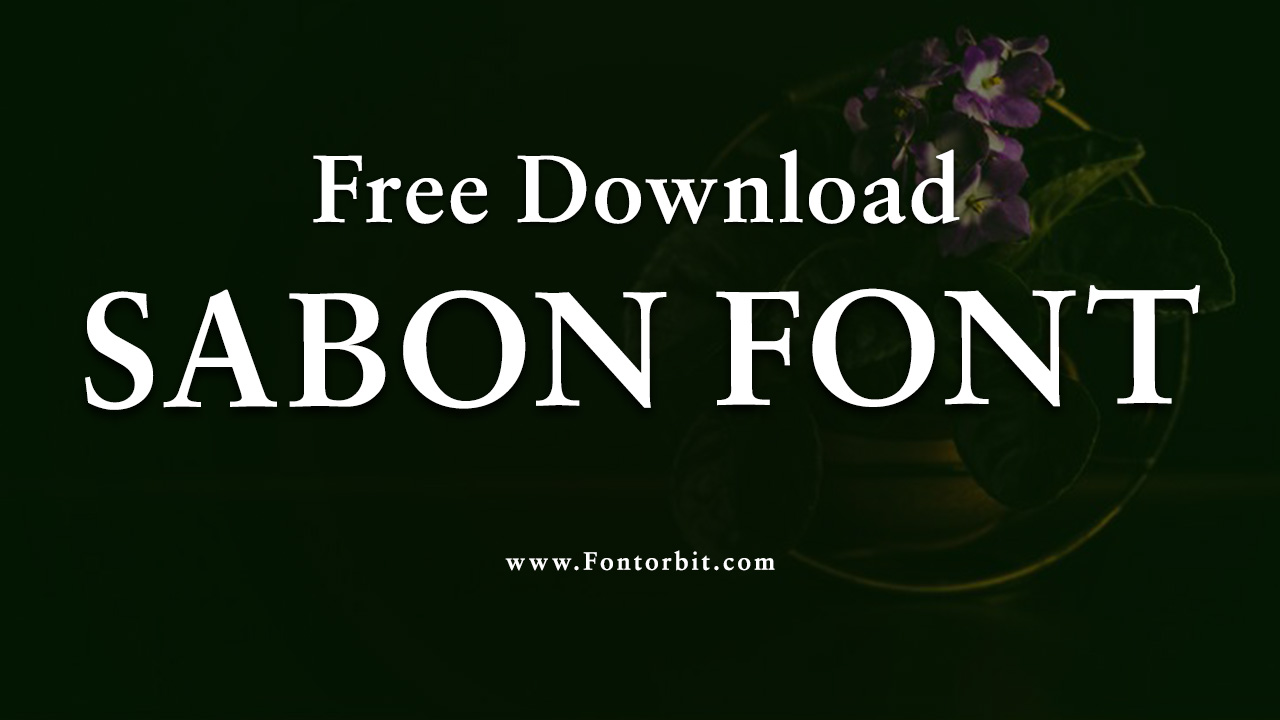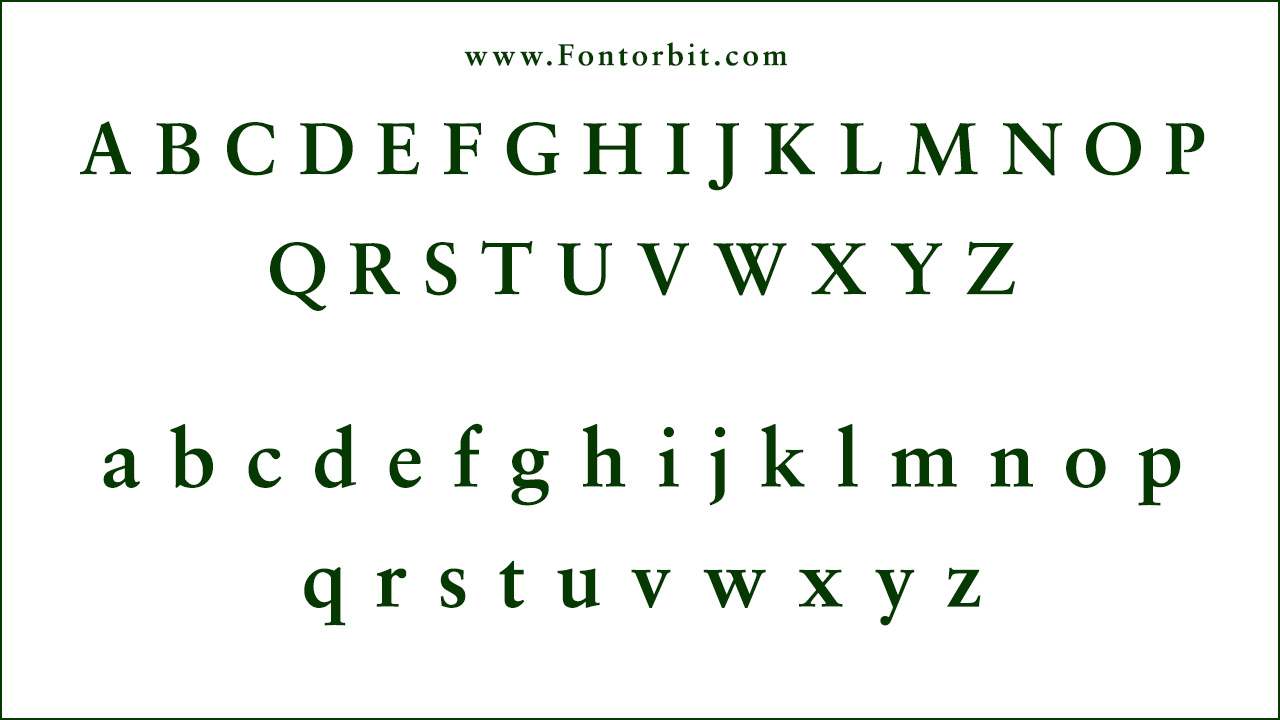
Jan Tschichold designed Sabon Font, a classic old-style serif typeface, between 1964 and 1967. He drew inspiration from the works of Claude Garamond and Robert Granjon, naming the font ‘Sabon’ to honor Jacques Sabon, who helped bring Garamond’s typefaces to Frankfurt. Tschichold created Sabon to meet the technical requirements of both Linotype and Monotype machines.
Sabon Font Family Includes
- Sabon Pro Roman
- Sabon Pro Italic
- Sabon Pro Bold
- Sabon Pro Bold Italic
Notable Uses Of Sabon Font
Designers widely use Sabon Font in book publishing due to its readability and classic design. Its clean, elegant lines make it perfect for large blocks of text, while advertisers and branding projects often use bold and italic styles. Sabon Font is ideal for a range of design projects, including:
- Book typography
- Editorial designs
- Advertisements
- Invitations and stationery
- Catalogues
- Websites and digital media
Sabon Font is a beautifully designed serif typeface that has stood the test of time. With its elegant old-style features, it is an excellent choice for projects that require a sophisticated, classical look.
2.Who Designed Sabon Font?
Sabon Font was designed by Jan Tschichold, inspired by the works of Claude Garamond and Robert Granjon.
3.What Type Of Font Is Sabon?
Sabon is an old-style serif typeface, perfect for both body text and display purposes.
4.Where Can I Use Sabon Font?
Sabon Font is ideal for book typography, branding, logos, editorial design, and more.